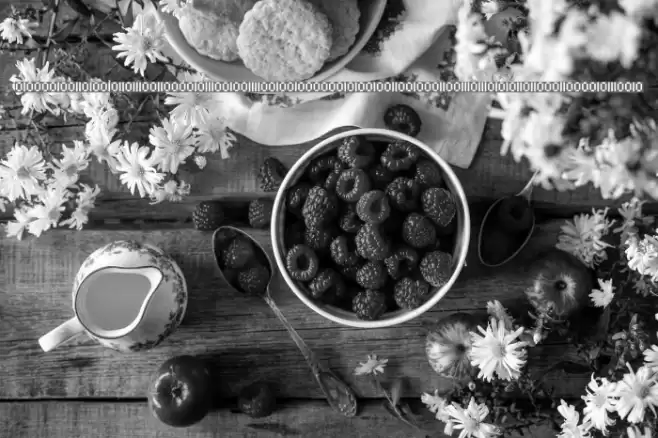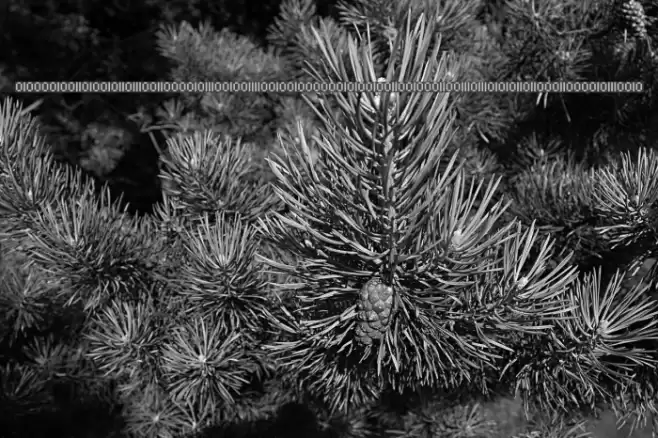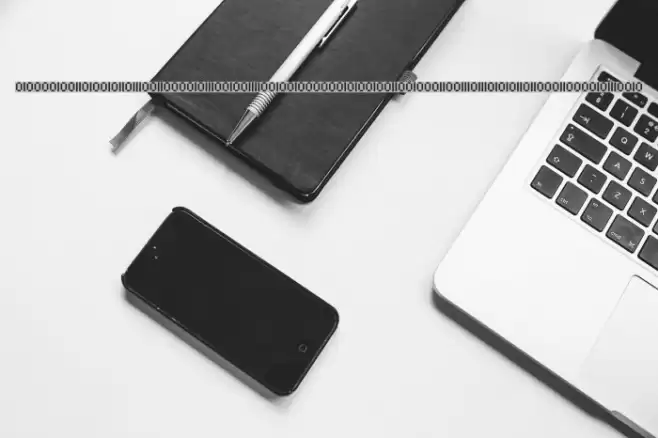
Binary Regular Font
This font is a creative representation of binary code, using the digits '0' and '1' to form each character. The design is highly abstract, with each letter and symbol constructed from a series of binary digits, creating a unique and digital aesthetic. The characters are evenly spaced, maintaining a consistent pattern throughout. This font is not intended for traditional reading but rather for artistic or thematic purposes, where the representation of binary code is central to the design. The style is modern and digital, appealing to tech enthusiasts or projects that require a futuristic or computational theme.
A digital font using binary code to form characters, ideal for tech-themed designs from Uncategorized fonts.
- Proposed Projects: Ideal for digital art projects, tech-themed posters, or any design requiring a futuristic, computational aesthetic.
- Use Case: Logos, Digital Art, Thematic Posters